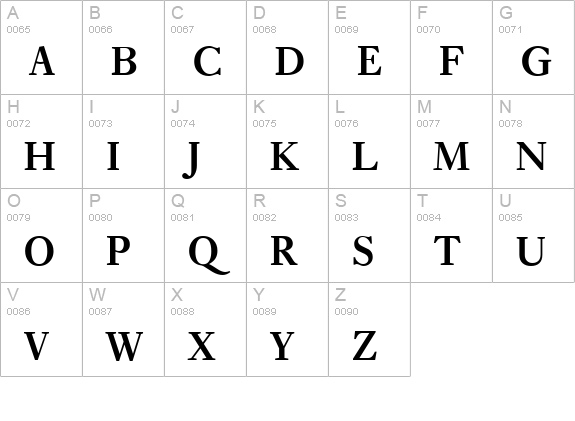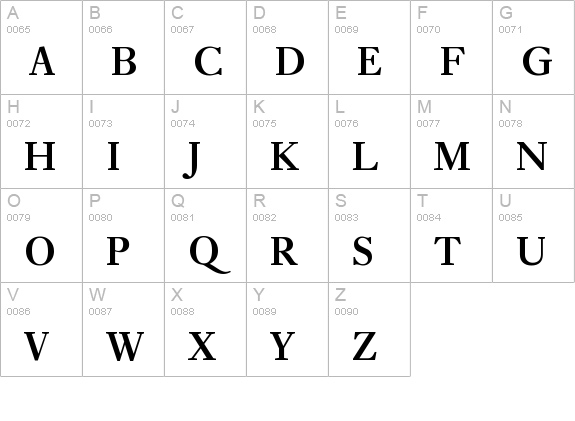
E720-Roman-Bold Font Details
E720-Roman-Bold is a strong, high-contrast variant in the E720 typeface family \xE2\x80\x94 well suited to headlines, attention-grabbing titles, and strong calls-to-action.
E720 Roman Bold font is a modern and sophisticated typeface that exudes elegance and style. With its bold and strong appearance, this font is perfect for making a statement in your designs. The sleek lines and sharp edges of E720 Roman Bold make it stand out and capture attention effortlessly. What sets E720 Roman Bold apart is that it is not only visually striking, but it also offers excellent readability and versatility. Whether you're designing a logo, poster, website, or any other project, this font will help you achieve a professional look with ease. And the best part? E720 Roman Bold is available for free download at FontsMarket.com. So go ahead and add this stunning font to your collection without spending a dime. Elevate your designs with the timeless beauty and bold presence of E720 Roman Bold font today!